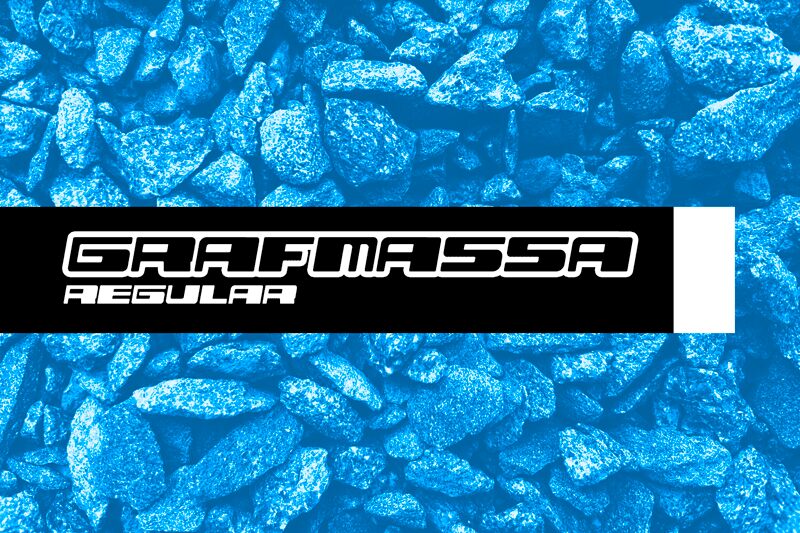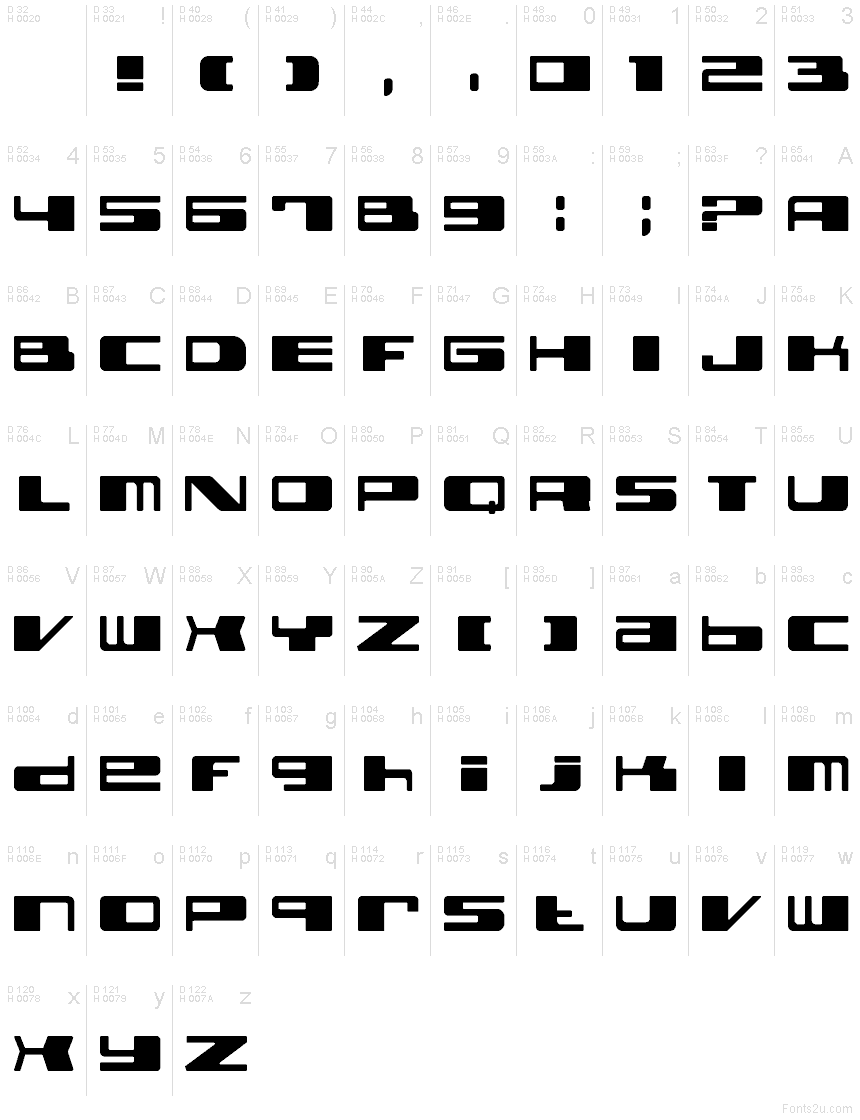
Grafmassa Regular
Grafmassa font by Wladyslaw Borisoff is a futuristic, expanded, and bold display typeface created with an appealing contemporary aesthetic. It has linear elements, geometric shapes, and a modular design that altogether convey the advanced style under which it was made. Unmistakably eye-catching and innovative in appearance, Grafmassa will give life instantly to any type of textual body.